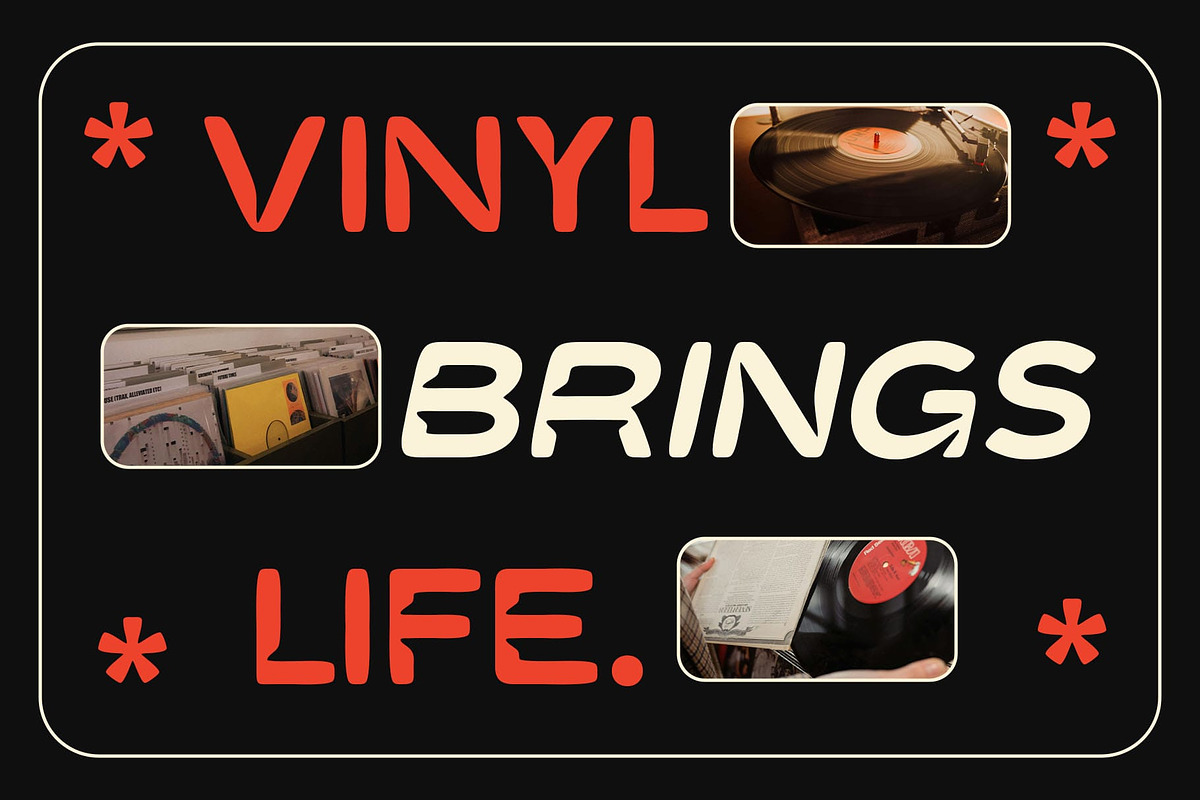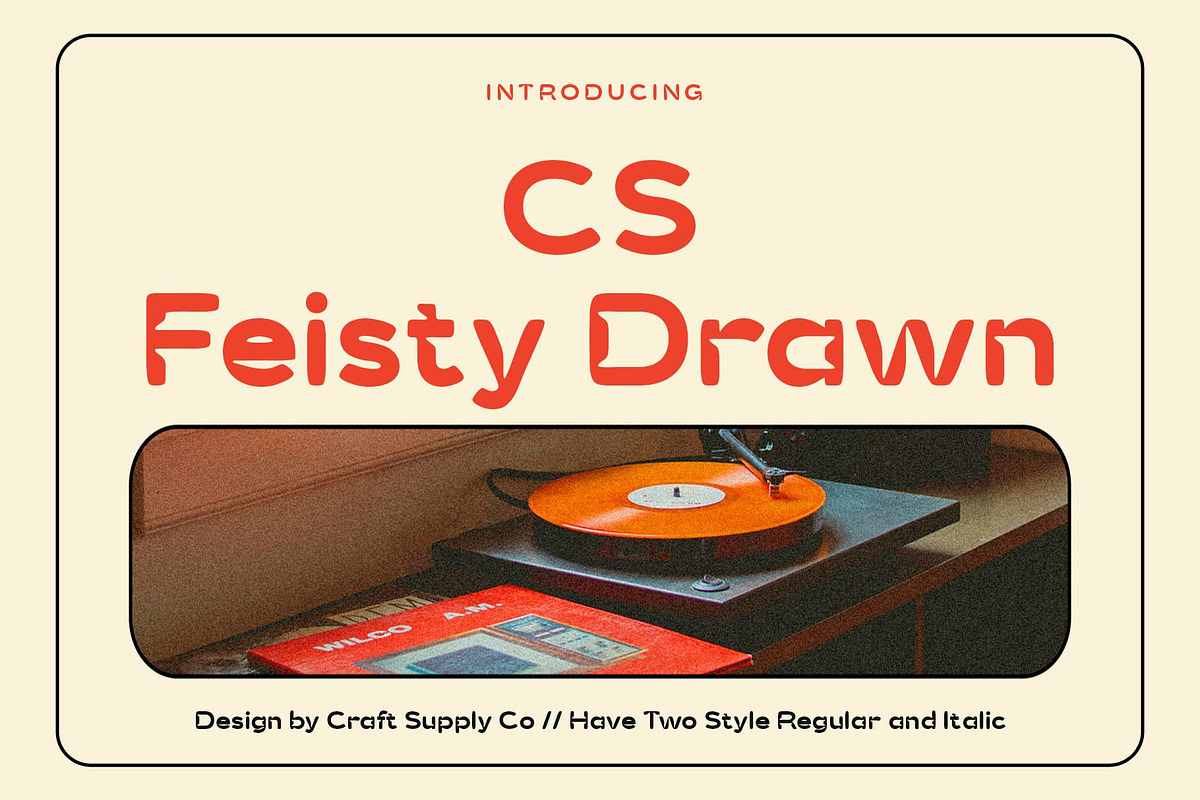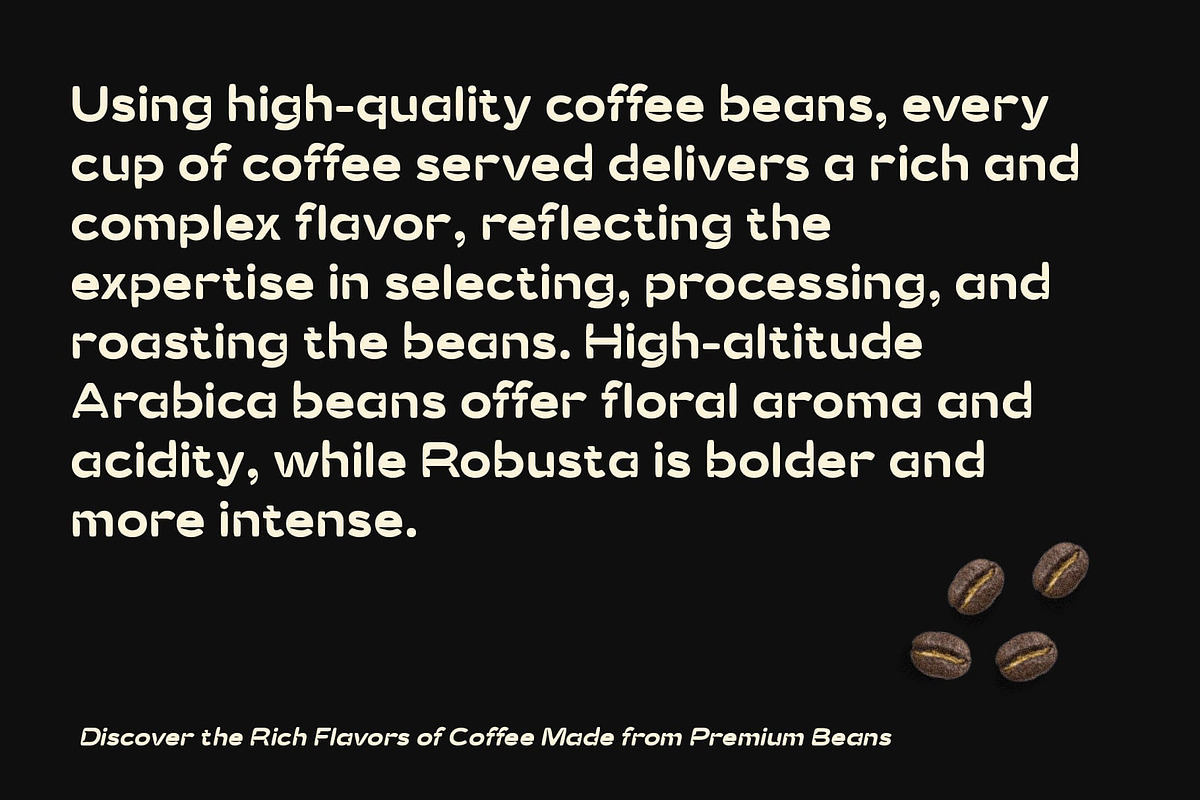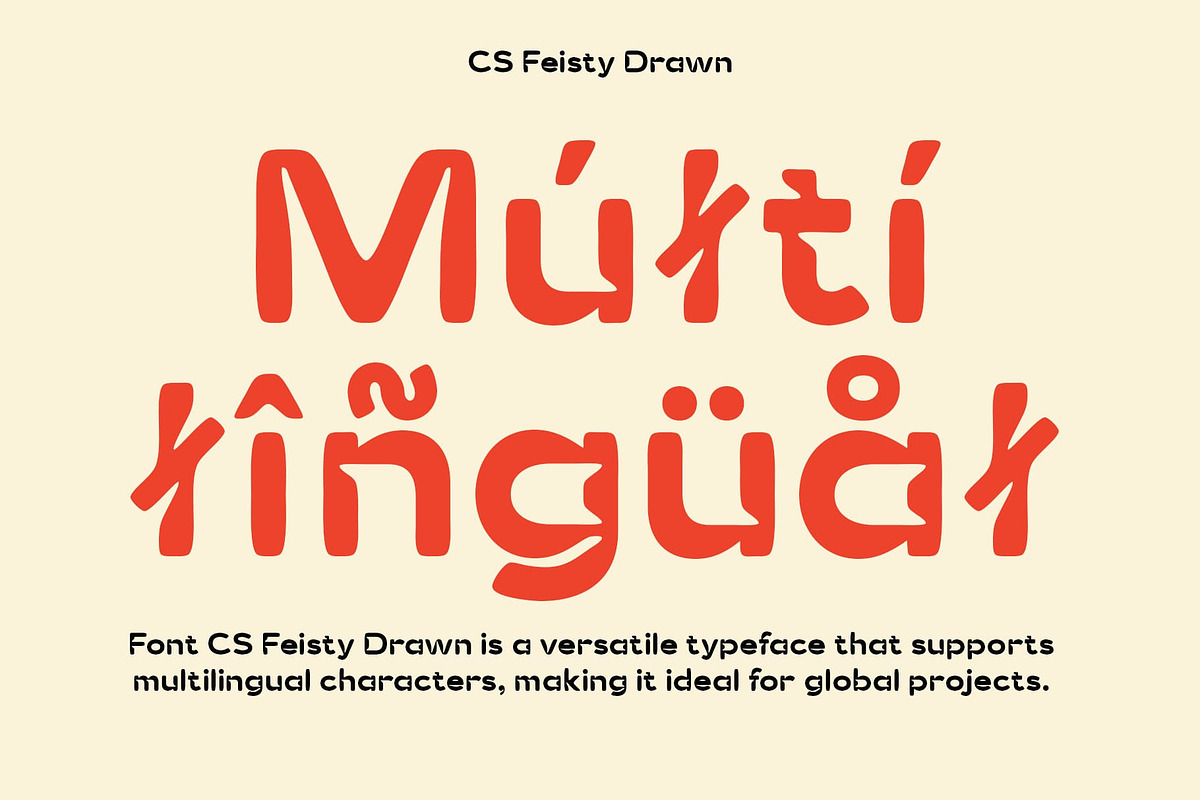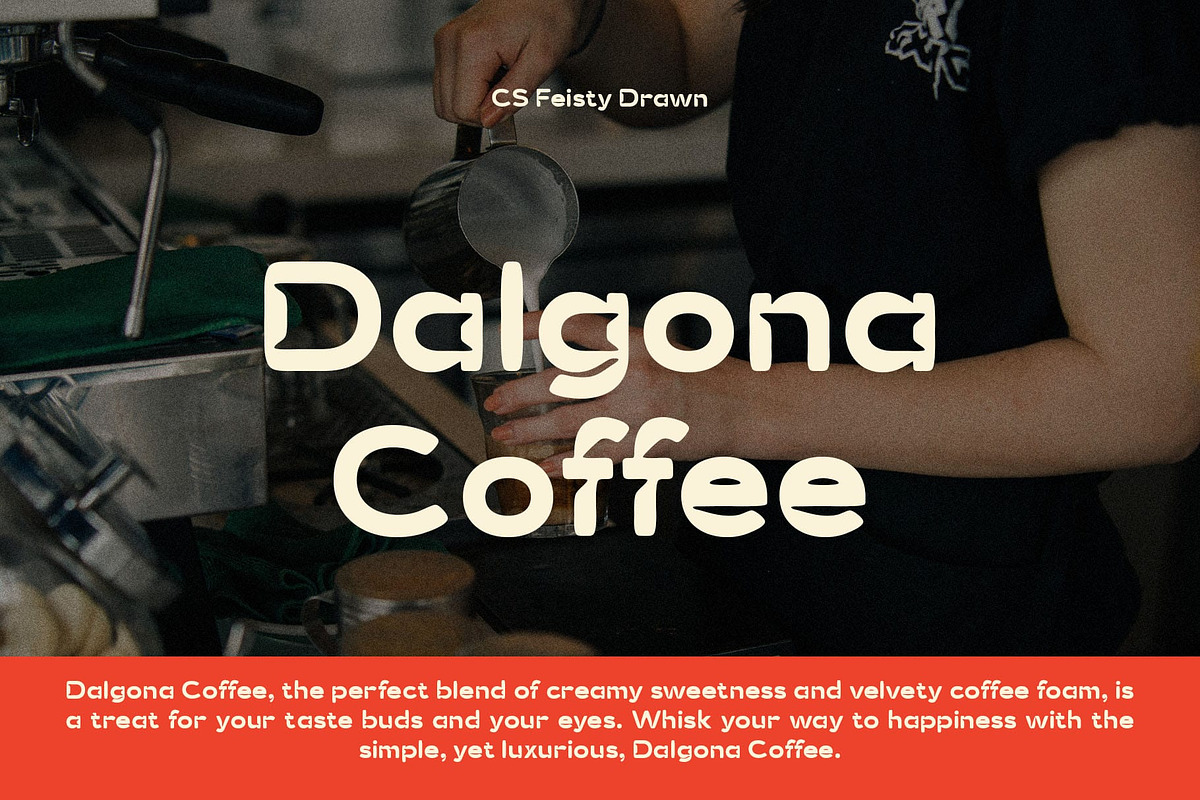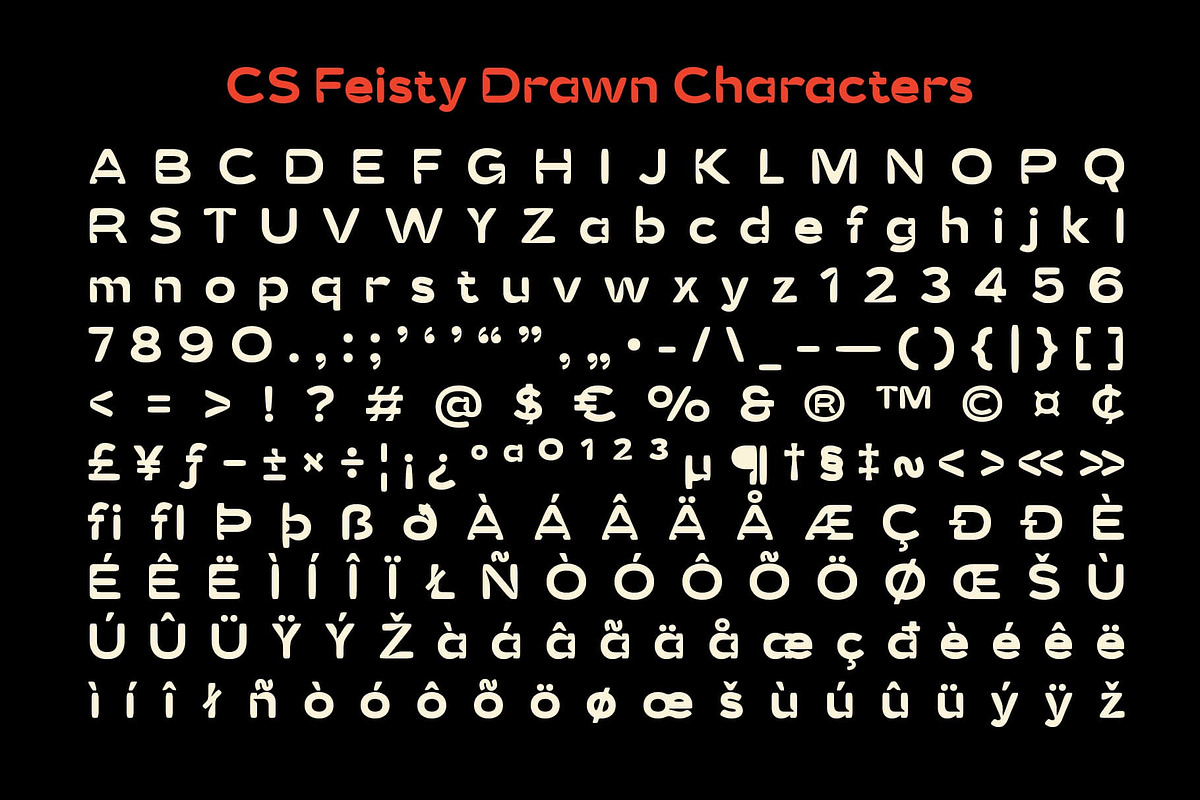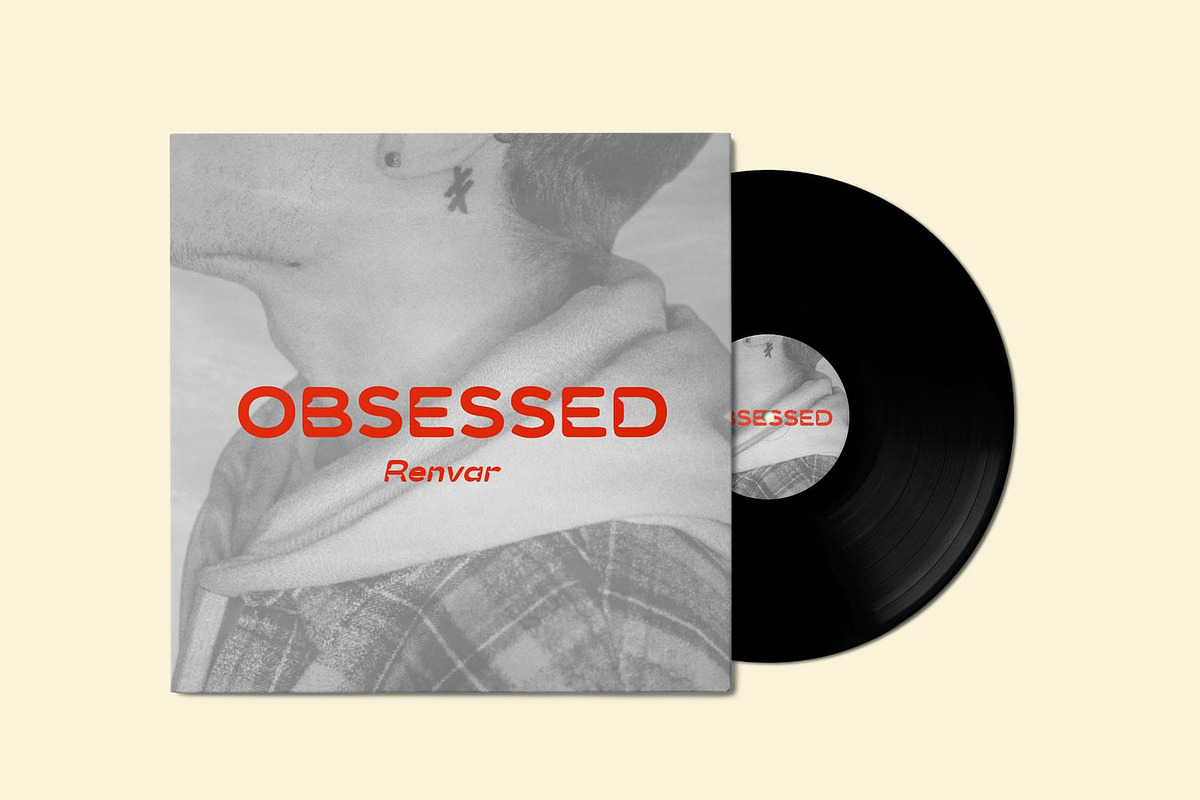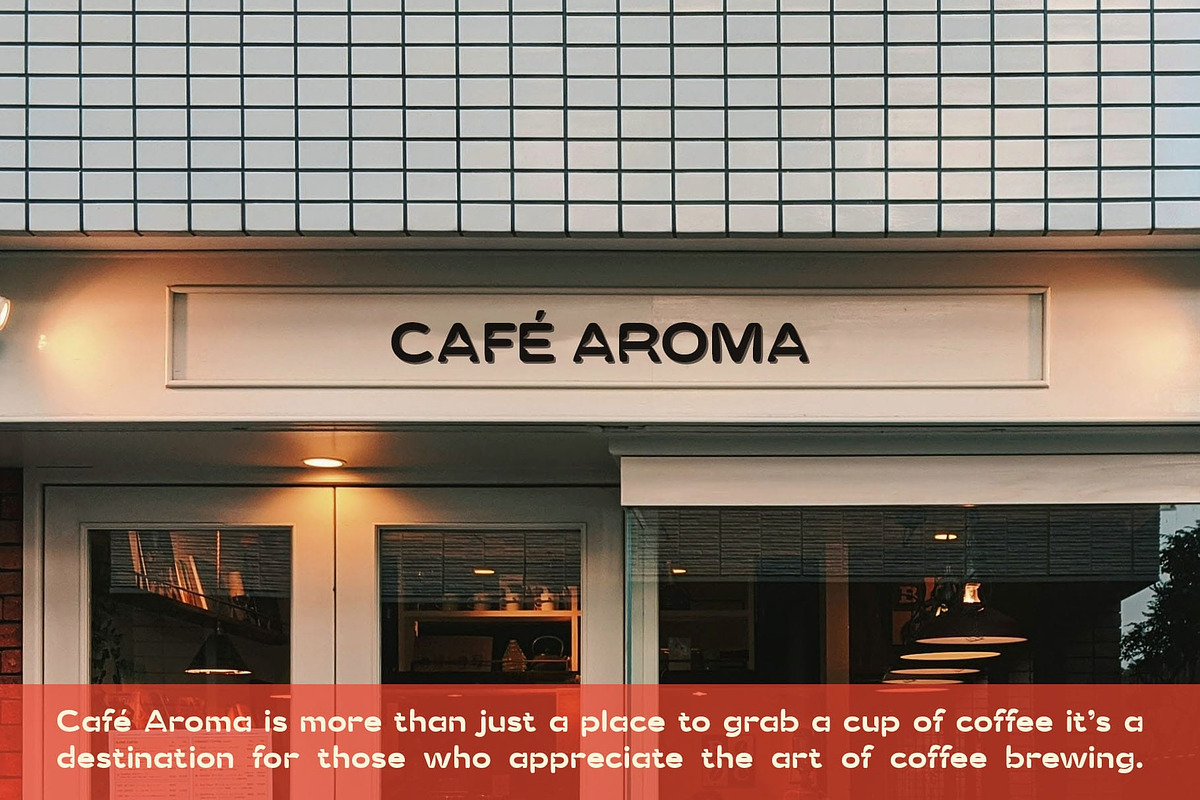
CS Feisty Drawn
CS Feisty Drawn – Bold, Creative, and Modern
Modern Sans-Serif with Inktrap Details and Drawn Effect CS Feisty Drawn is a bold, modern sans-serif font that combines sharp inktrap details with an artistic drawn effect. The inktrap elements create clean, precise lines that enhance readability, while the drawn effect adds a unique, hand-crafted character to each letterform, giving the font a dynamic and creative feel.
Strength, Clarity, and Artistic Expression The bold form of this sans serif font ensures it stands out in any design, making a powerful visual impact even in smaller sizes. The inktrap features not only refine the overall appearance but also improve legibility, making this font versatile and easy to read in various contexts. The drawn effect adds a playful and artistic dimension to the design, transforming it into something truly unique.
Perfect for Creative Projects and Branding This drawn font is perfect for branding, posters, and creative projects where modern aesthetics meet artistic expression. Whether used for eye-catching advertisements or impactful logo designs, this font brings a distinctive, memorable presence to any project.
Bold, Creative, and Striking This drawn font brings a dynamic, memorable presence to any project. Whether you’re looking to create eye-catching advertisements, modern brand identities, or striking visual designs, this font offers a unique balance of boldness, clarity, and creativity.